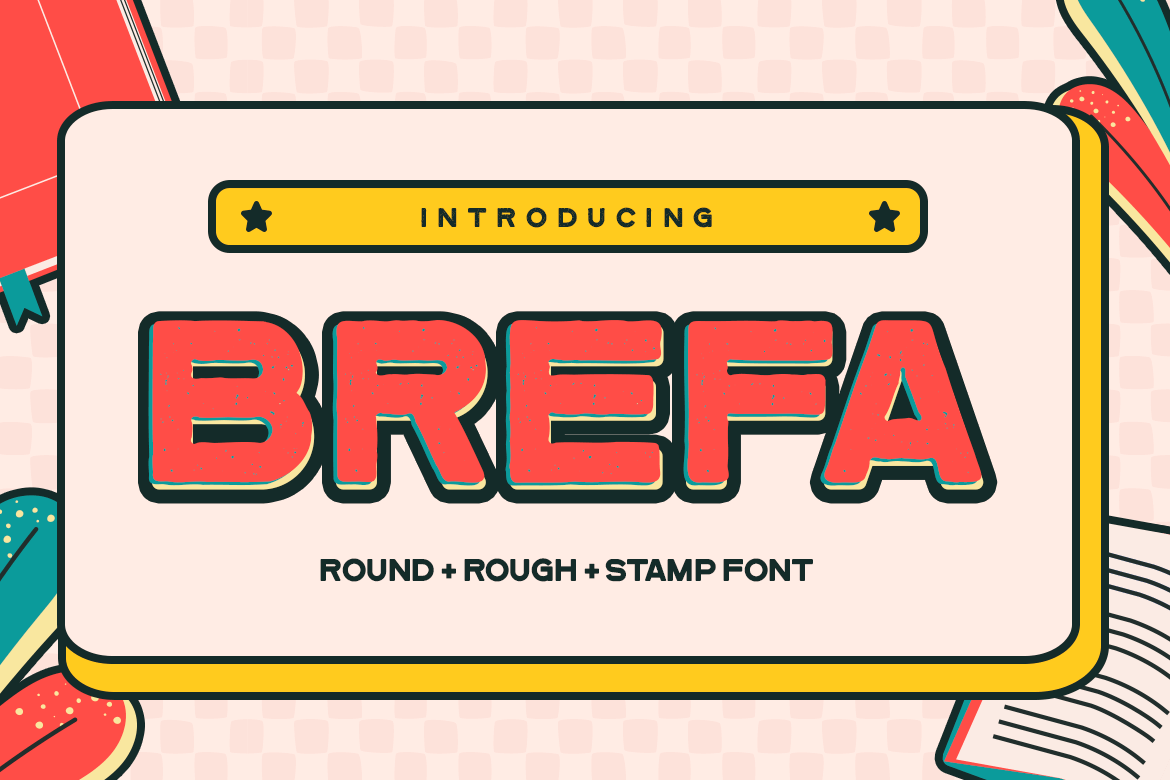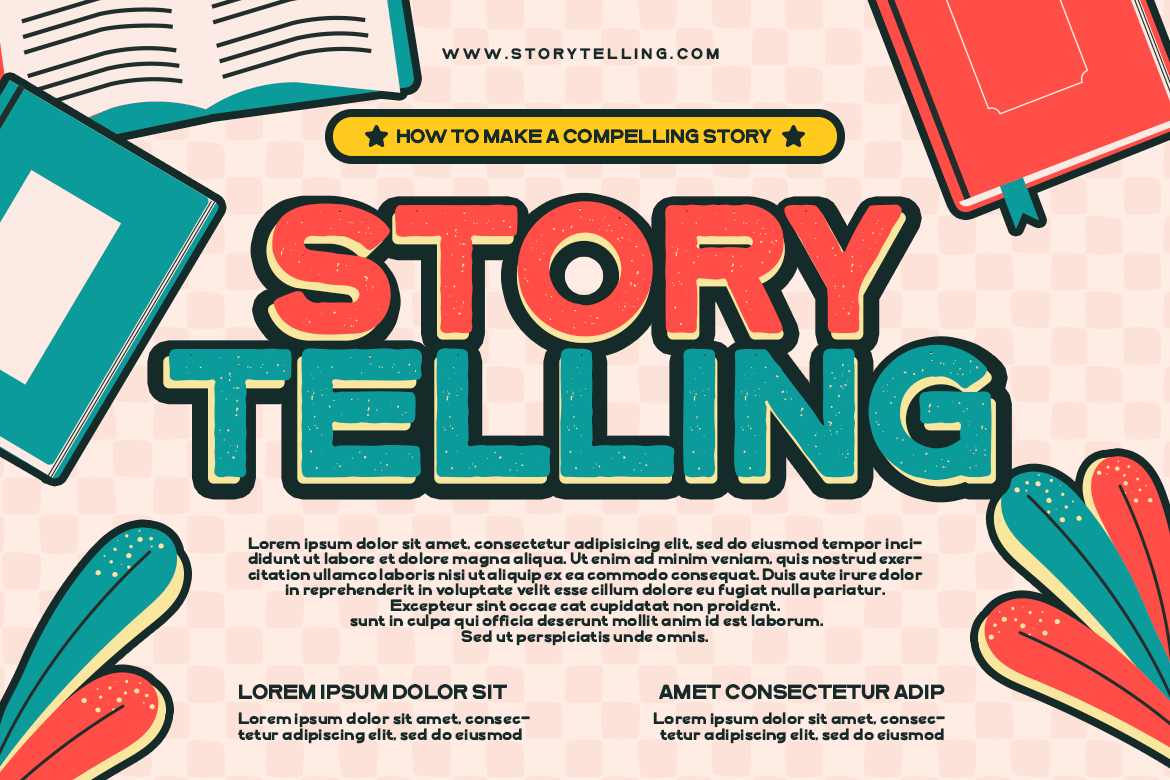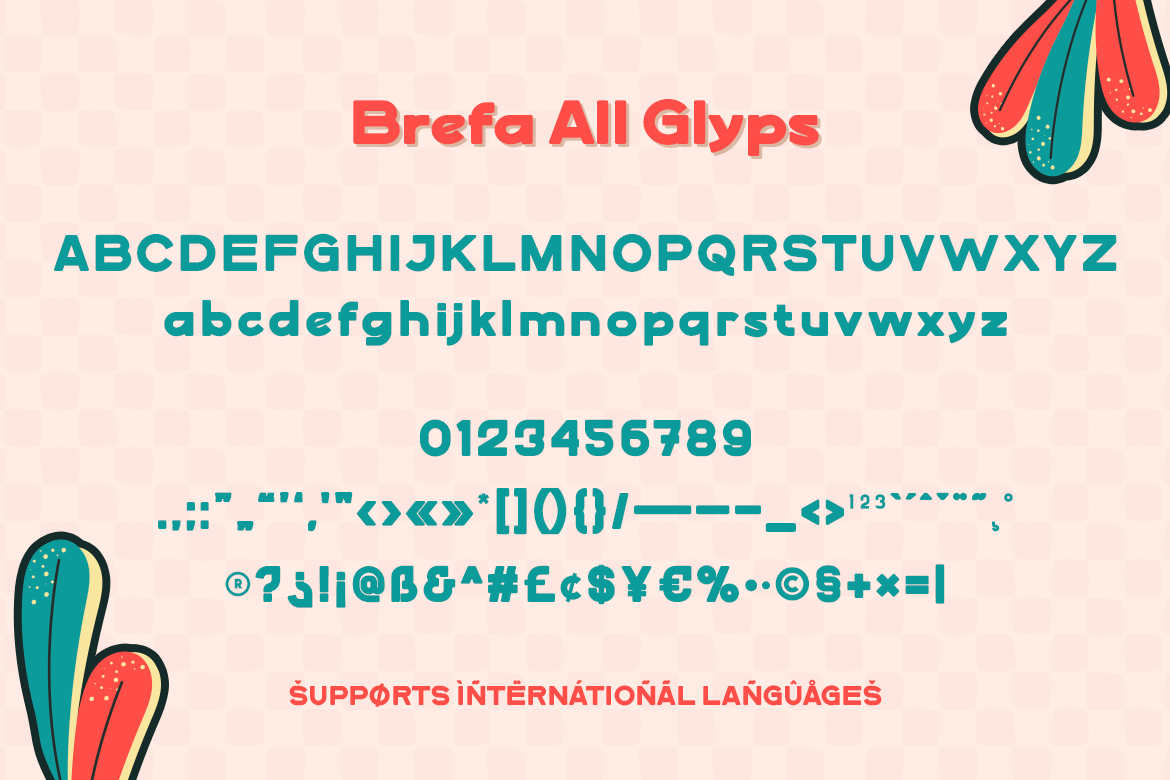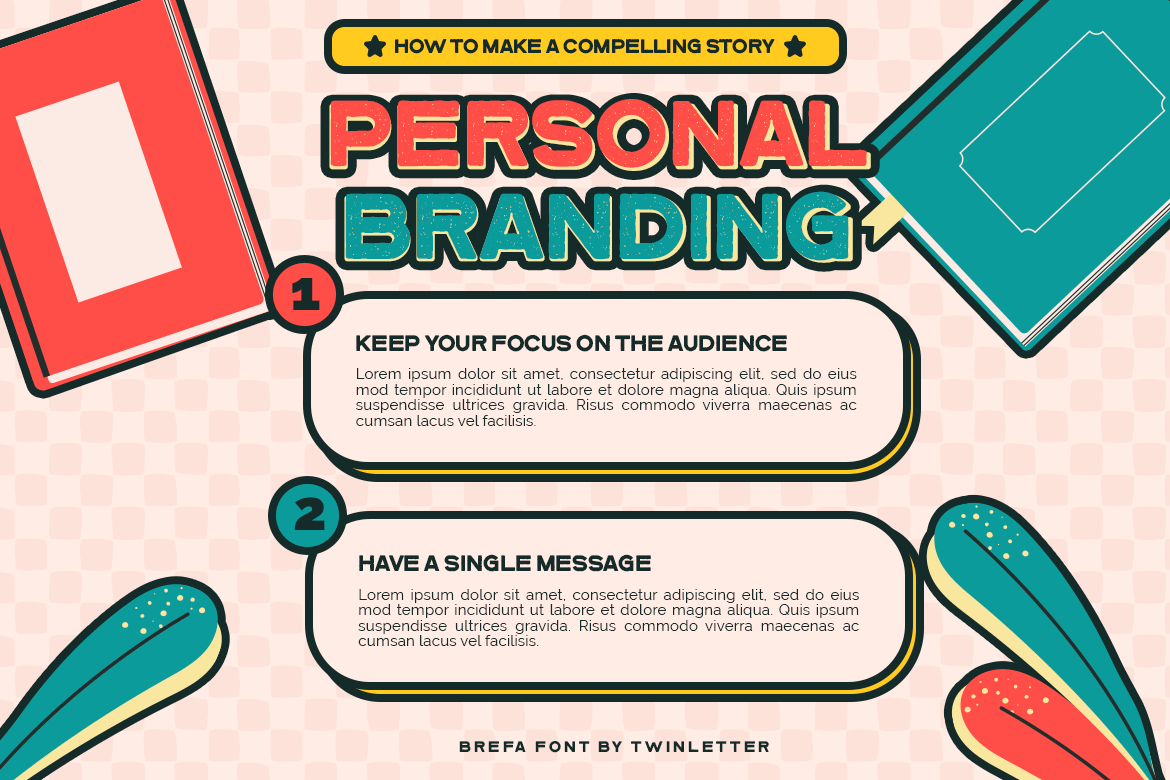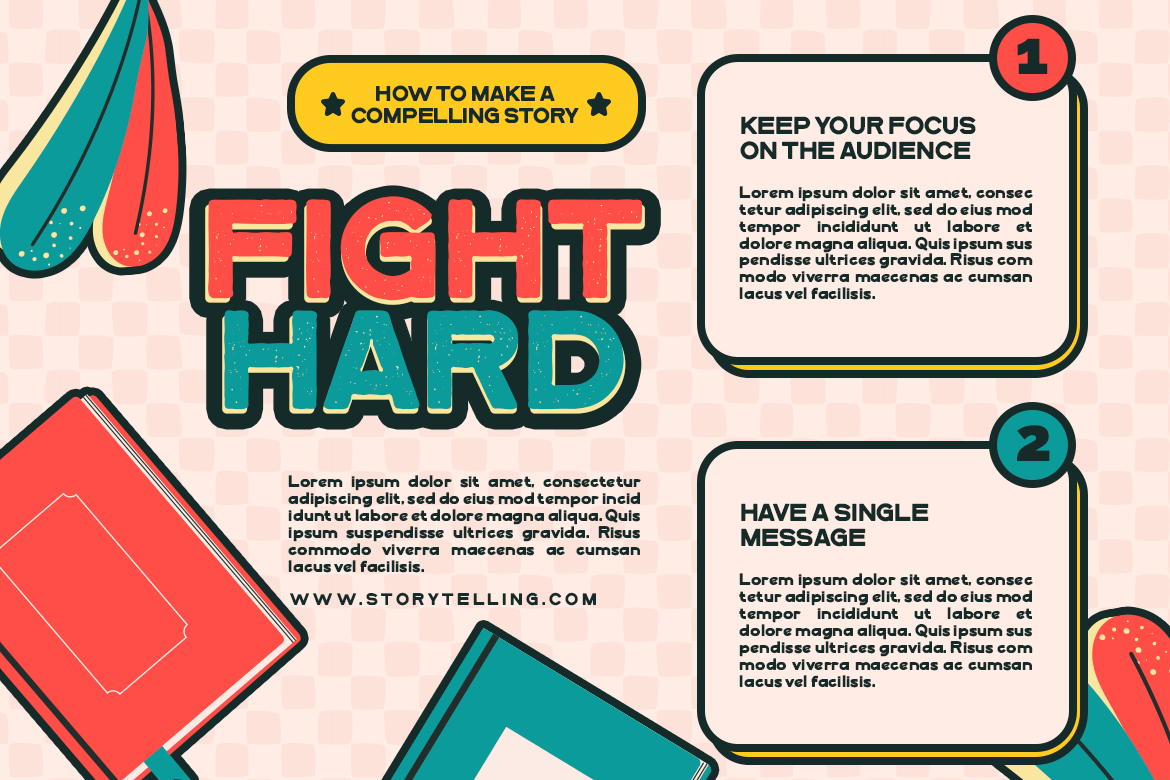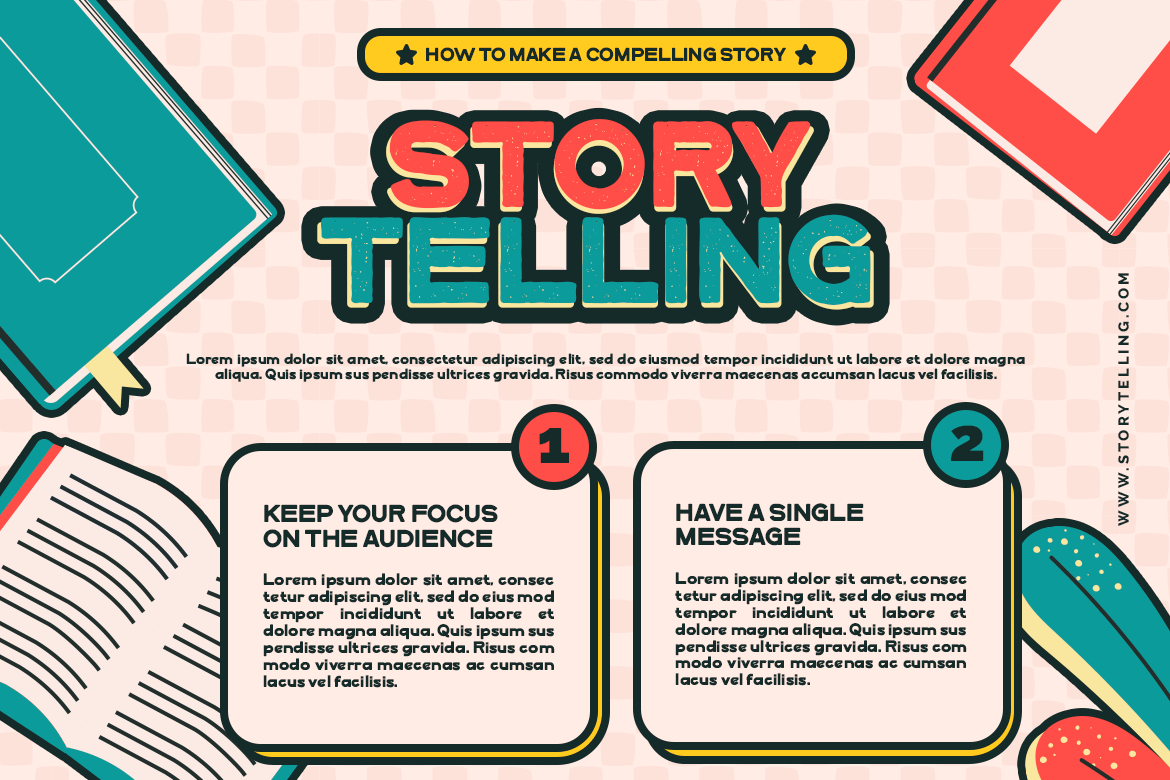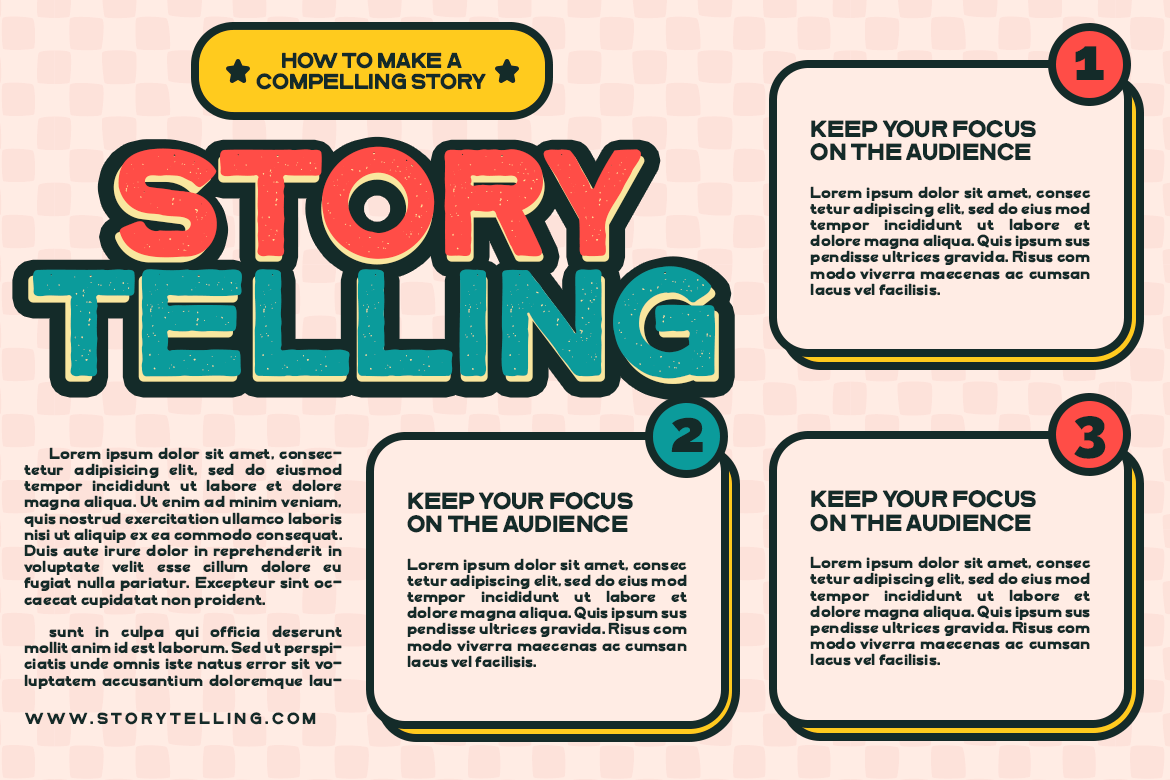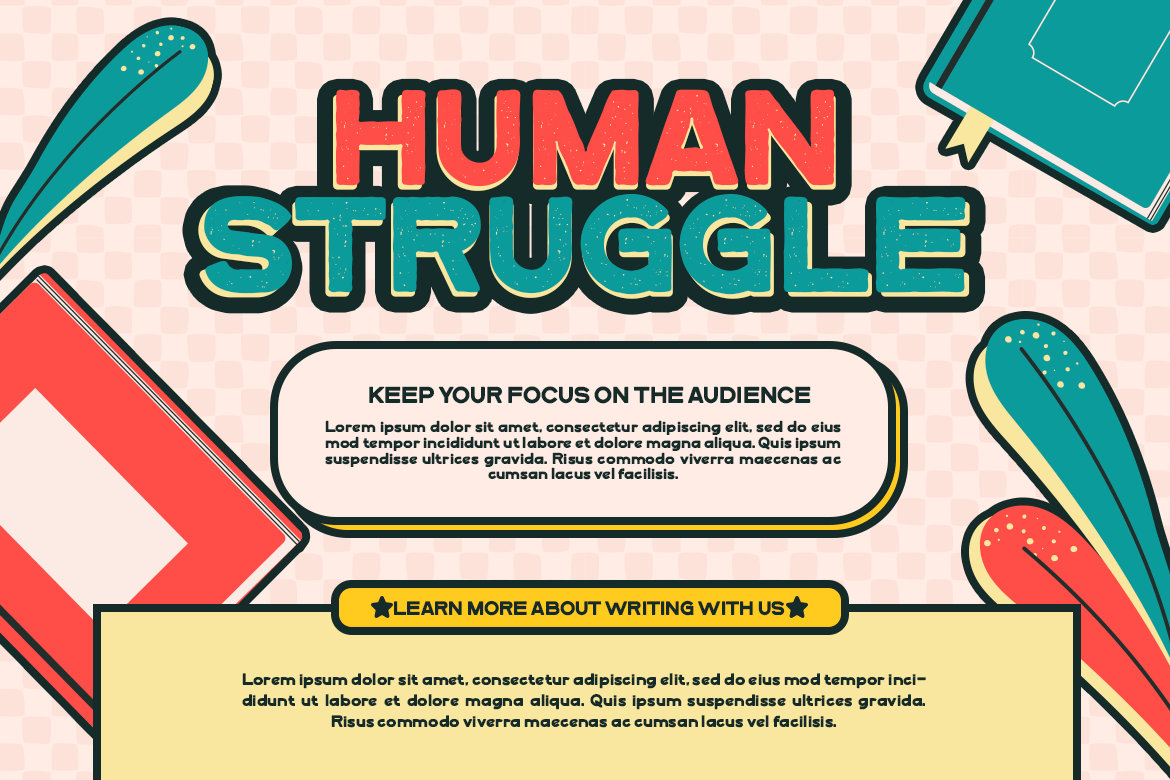
Brefa
Brefa is a san serif font family that carries a modern classic theme with a variety of designed fonts
with light strokes that make up a vintage style with a rustic touch and a stamp
With this font, you can beautify your work as well as strengthen your work in the form of storytelling, logos, typography, hand lettering, packaging, t-shirts, labels, and much more.